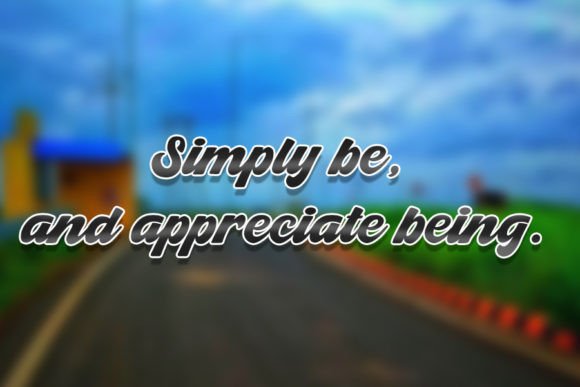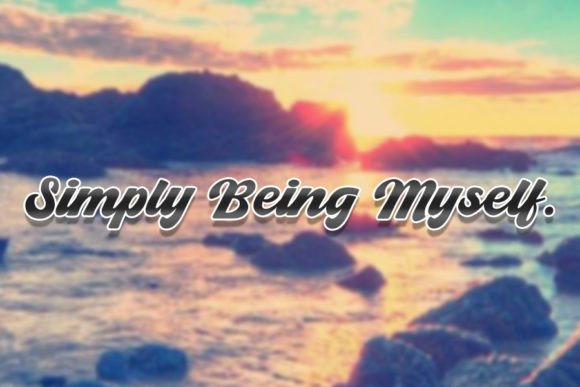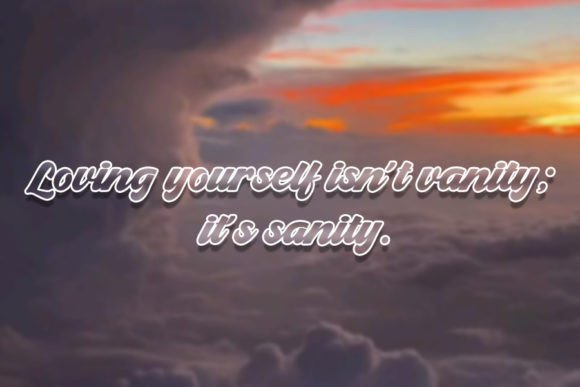
Introduction to Rimatara Font
Rimatara is a retro and bold display font.
It would look great on headlines, magazines, logos, branding and so much more .
Key Features of Rimatara Font
Why Choose Rimatara Font?
Rimatara Font offers exceptional quality and versatility, making it a valuable addition to your design toolkit. Whether you’re creating for personal projects or commercial use, Rimatara Font delivers professional results.